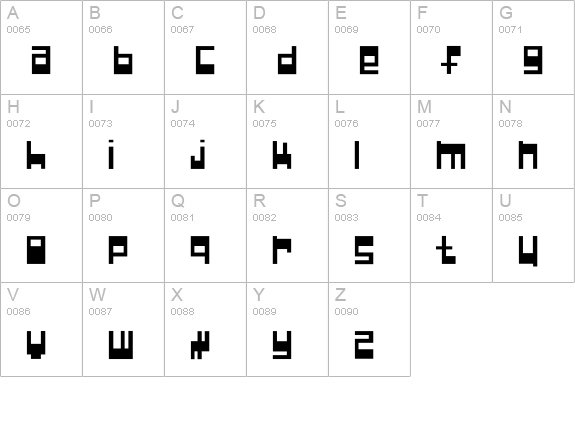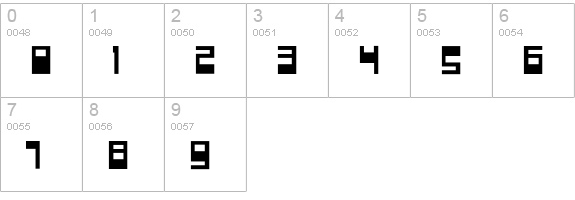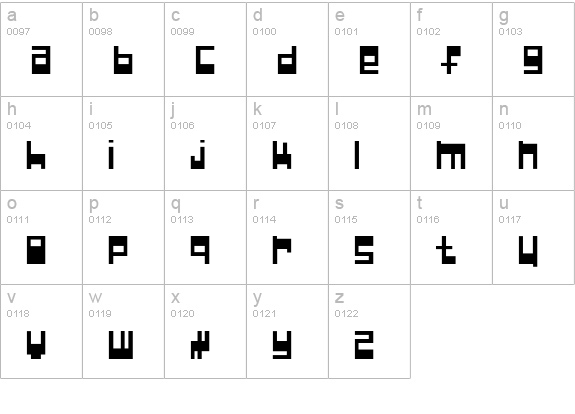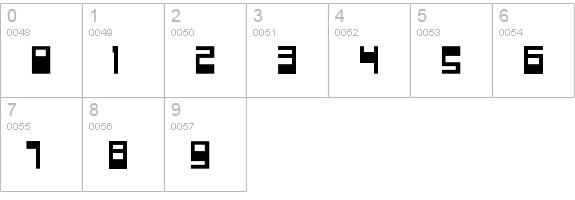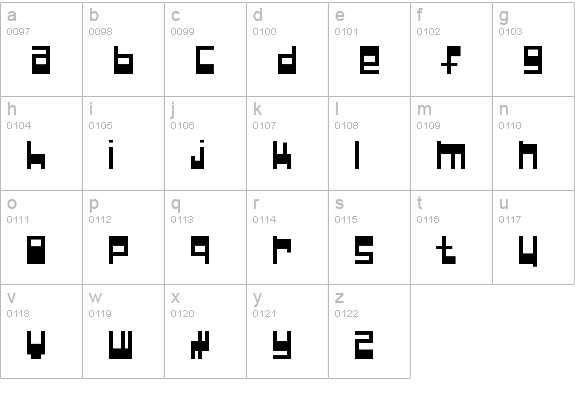
NullPointer Font Details
NullPointer font is a sleek and modern typeface that effortlessly combines elegance with a touch of minimalism. Its clean lines and sharp edges make it perfect for a wide range of design projects, from branding to editorial layouts. The font's versatility ensures that it can be used for both titles and body text, adding a sophisticated touch to any design. One of the best things about NullPointer font is that it is available for free download at FontsMarket.com. This means that you can easily access this stylish font and incorporate it into your projects without any hassle or cost. Whether you are a professional designer or a hobbyist looking to elevate your creations, NullPointer font is the perfect choice for adding a touch of sophistication and style.